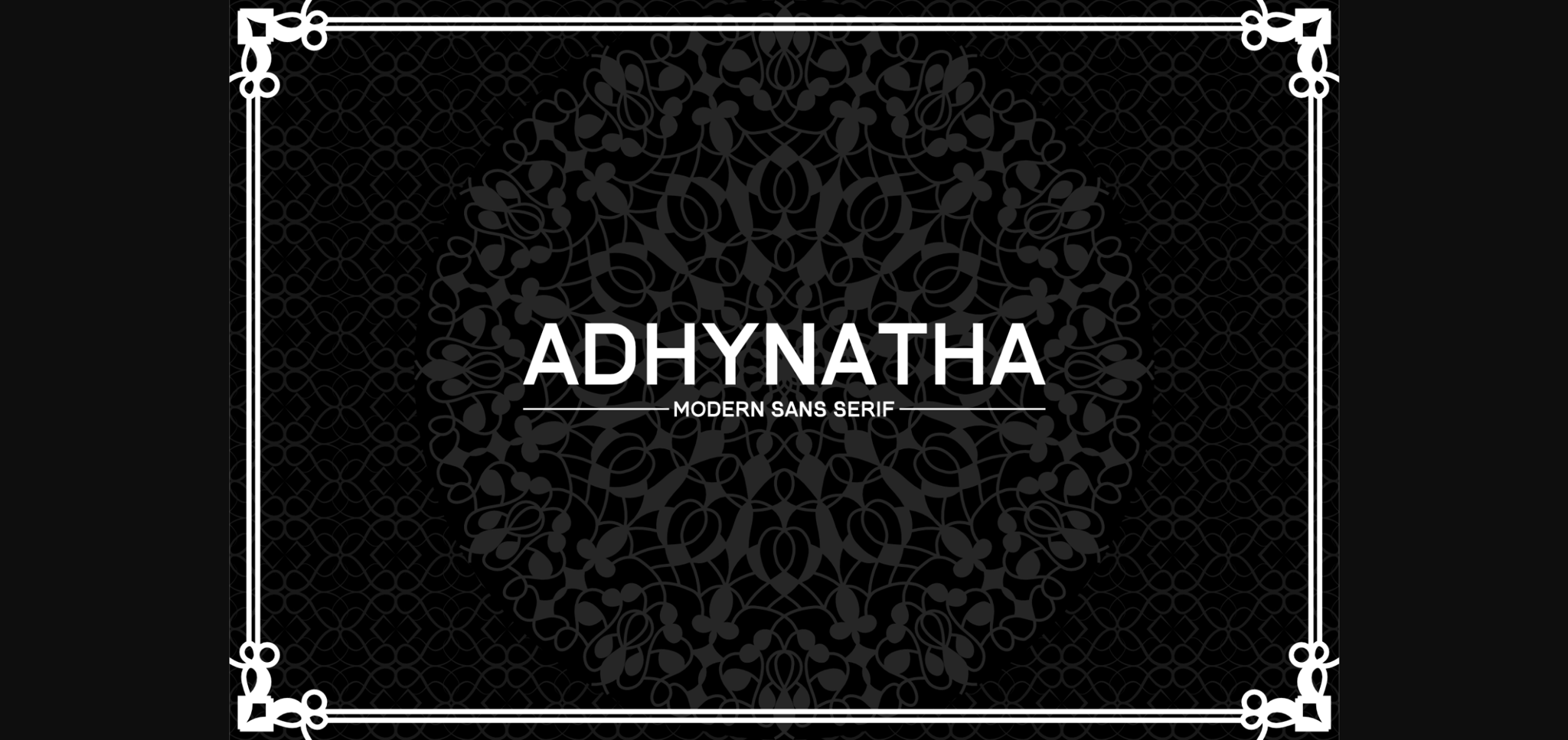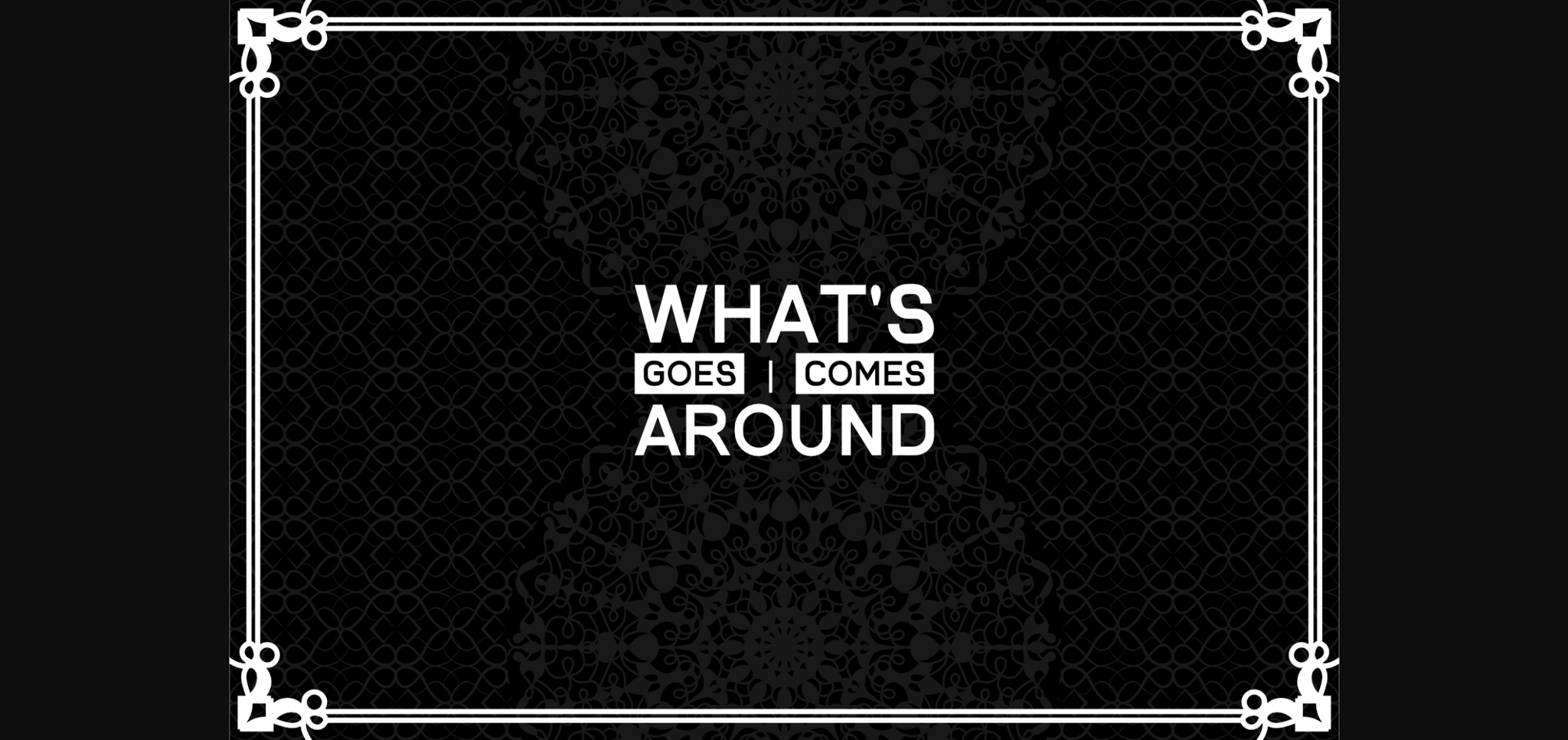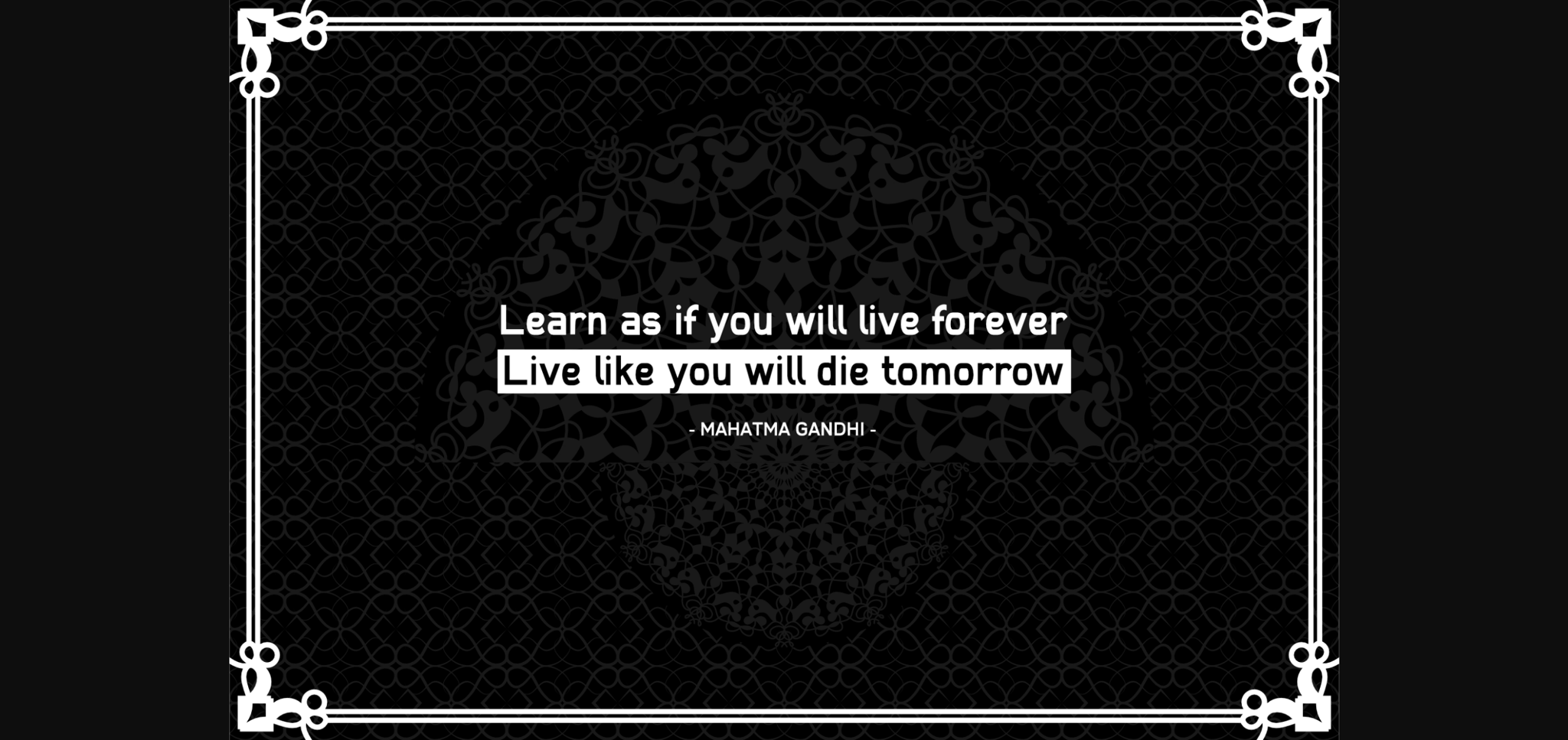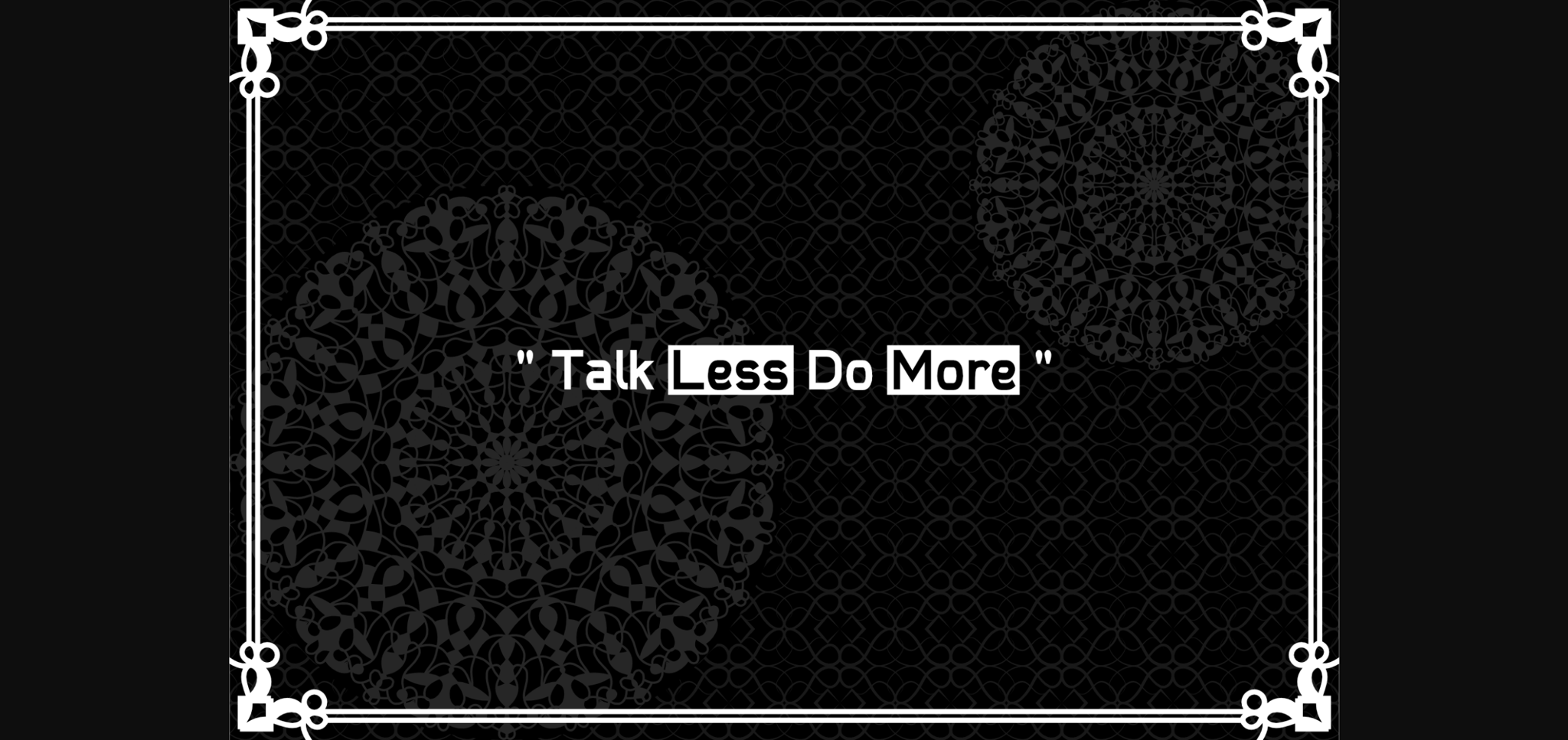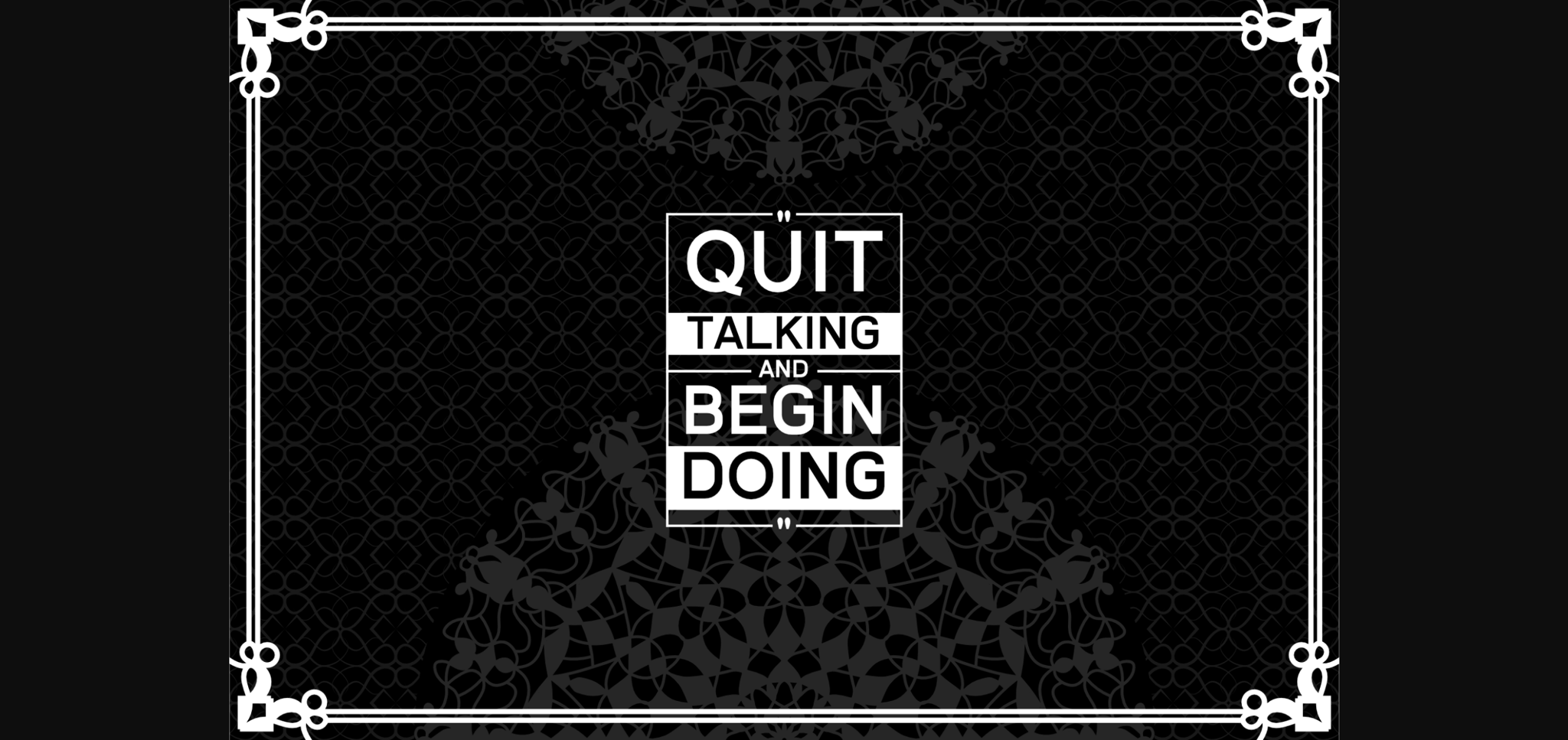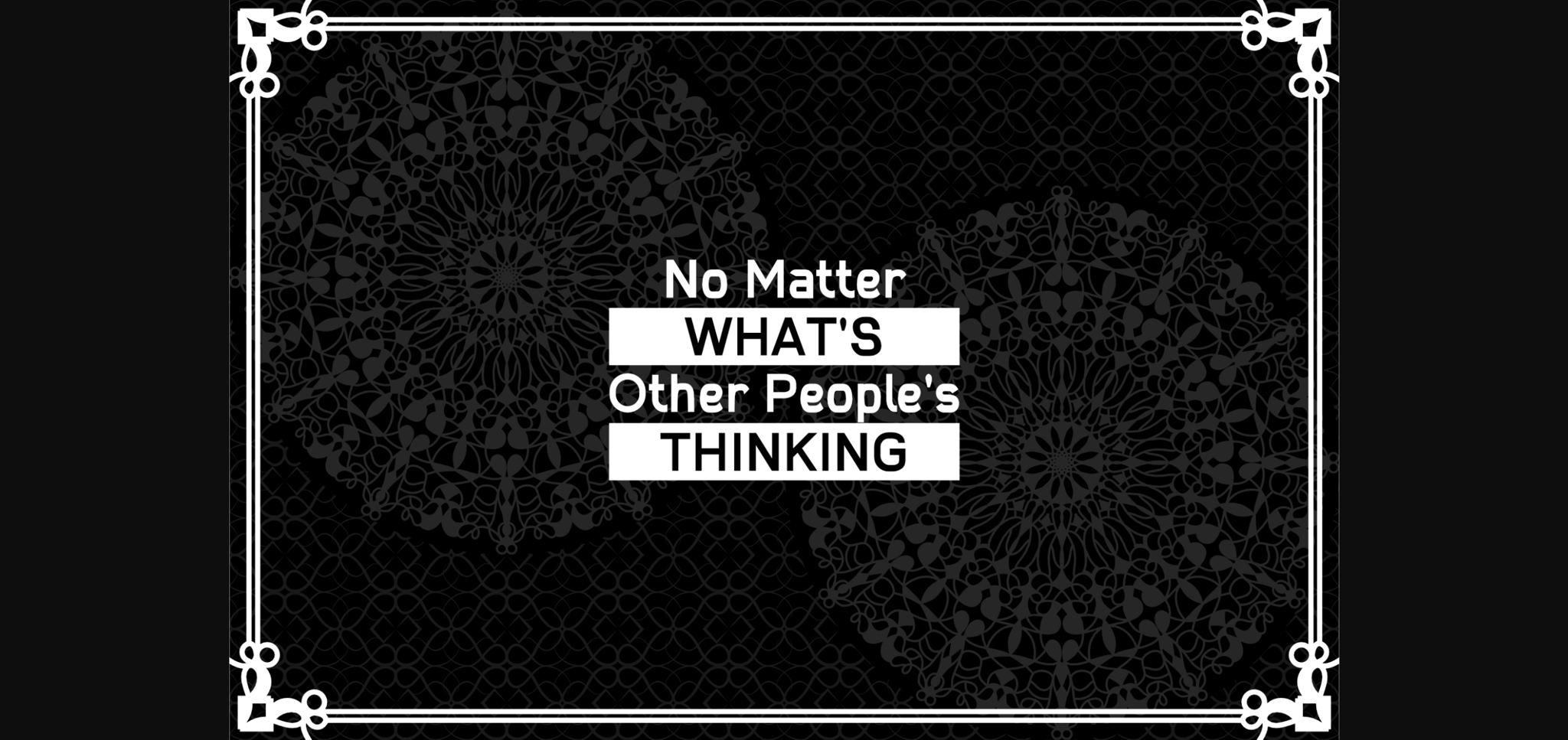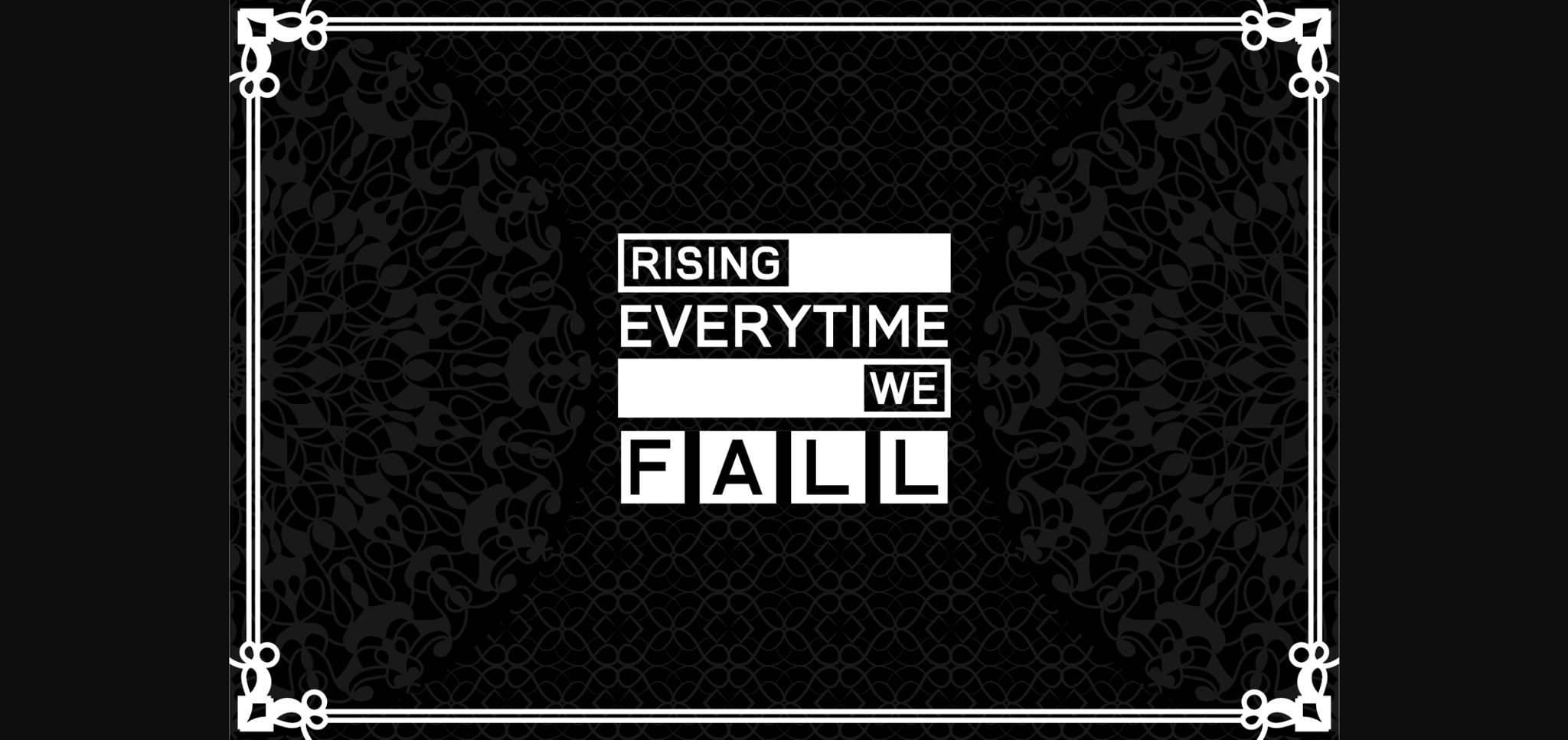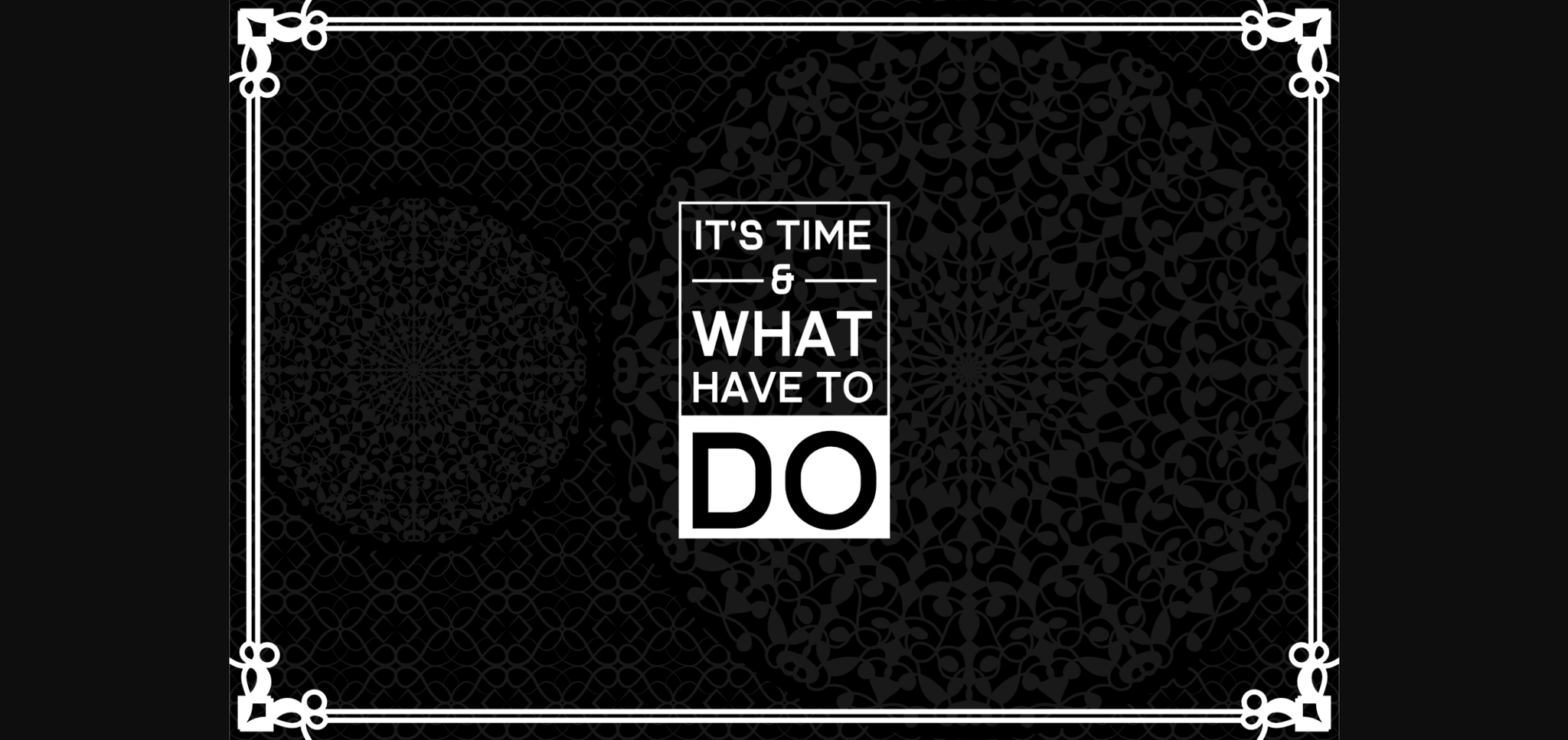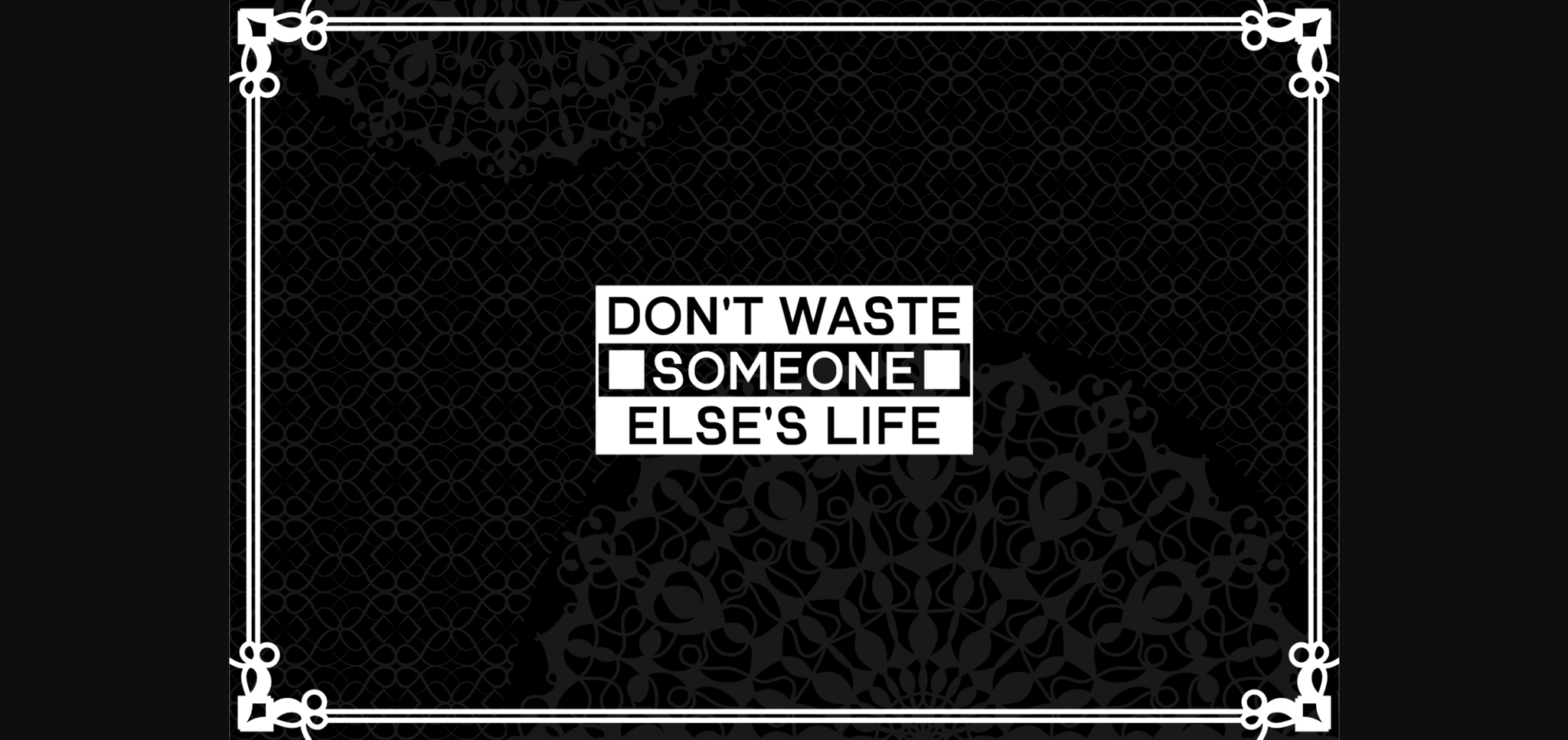
Adhynatha Font
About Adhynatha Font
Adhynatha adds a bold and iconic style to your artworks, both retro and modern. It’s perfect for any graphic design or typography project that requires a solid mood. Make all of your artistic creations come alive with style. This version includes the full characters set with a lot of graphic, that shown in the preview.